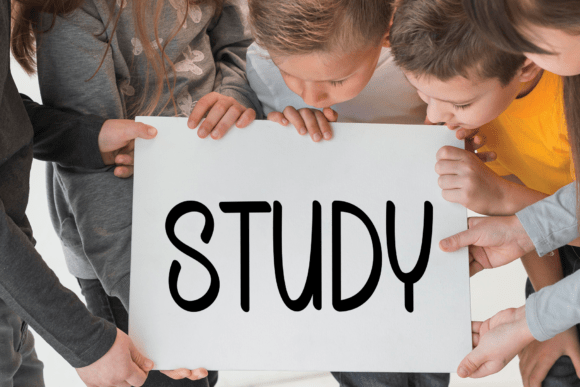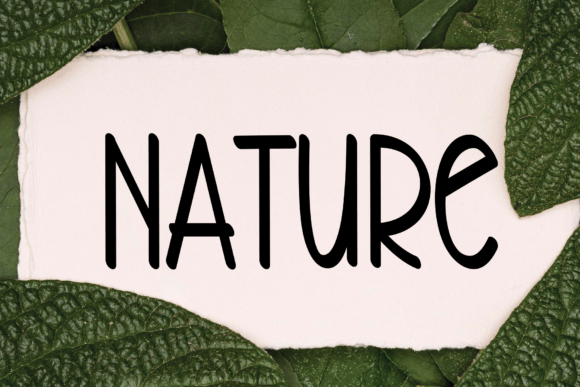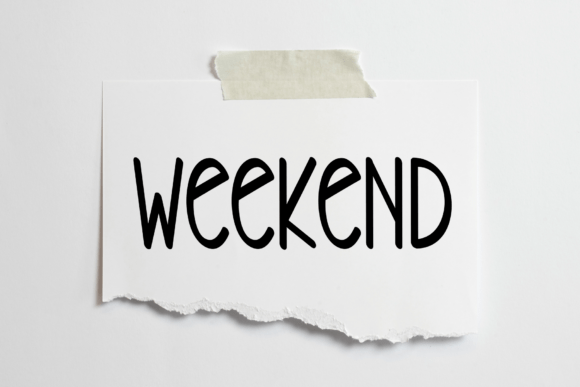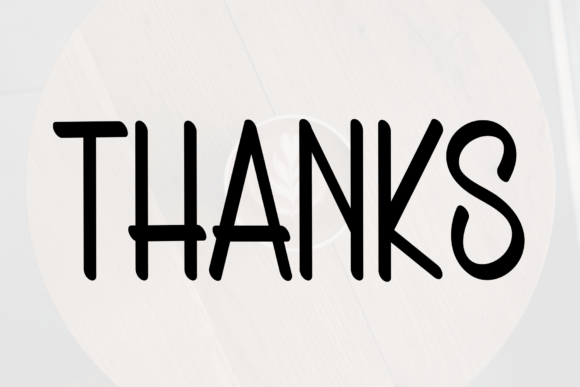
The Magic of Chapter Party Font: A Designer’s Delight
Have you ever been in the middle of a design project, and suddenly, you’re stuck on finding the perfect font? I recall a recent experience where I was working on a cozy home decor branding project, and I just couldn’t find a font that captured the warmth and playfulness I was looking for. That’s when I stumbled upon Chapter Party Font, and it was love at first sight! 💕
A Sweet and Beautiful Handwritten Font
Chapter Party Font is a sweet and beautiful handwritten font that features characters that dance along the baseline, adding a cozy accent to any design project. Its unique charm makes it perfect for designers, crafters, and creative hobbyists looking to add a personal touch to their work.
So, what do I love about Chapter Party Font? Here are a few things that make it stand out:
- ✨ Unique and playful character design that adds a touch of whimsy to any project
- ✅ Easy to read and understand, even at small font sizes
- 💕 Beautifully crafted to evoke a sense of warmth and coziness
Of course, no font is perfect, and Chapter Party Font has a few small quirks:
- 🤔 Some characters may not work well in all languages or scripts
- ⚠️ Limited availability of certain OpenType features
Chapter Party Font offers a range of OpenType features and glyphs that can enhance your design. Here are a few tips on how to access these features:
The Story Behind Chapter Party Font
Chapter Party Font was designed with love and care by a talented font designer who’s passionate about creating beautiful, handwritten fonts. The designer’s inspiration came from a love of reading, writing, and storytelling, and a desire to create a font that would evoke a sense of warmth and coziness.
| What is Chapter Party Font? | Chapter Party Font is a sweet and beautiful handwritten font featuring characters that dance along the baseline. |